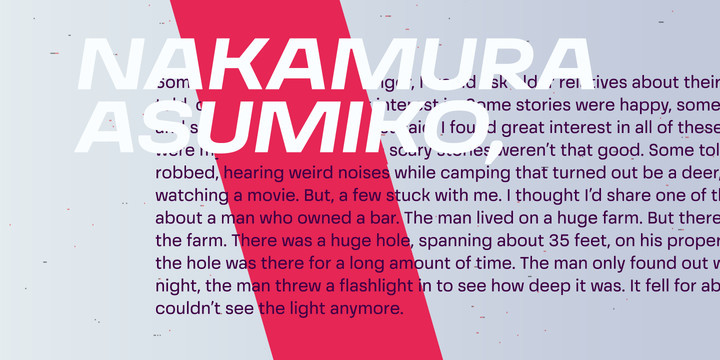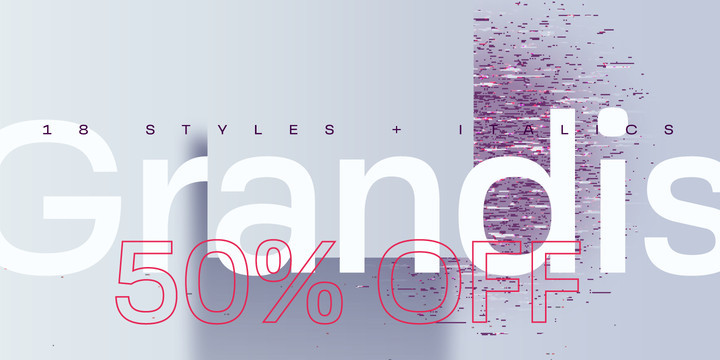
Grandis Font Family
Grandis (“chainlink”) was initially intended for a first person shooter’s UI, so this guided the design. The font had to be readable while maintaining sci-fi feel and also to not rely on kerning (most video games don’t support it). This meant a large x-height, steep diagonals and squared bowls to reduce the amount of white space between letters. Tabular numbers as default facilitate UI design where timers or tables are involved.